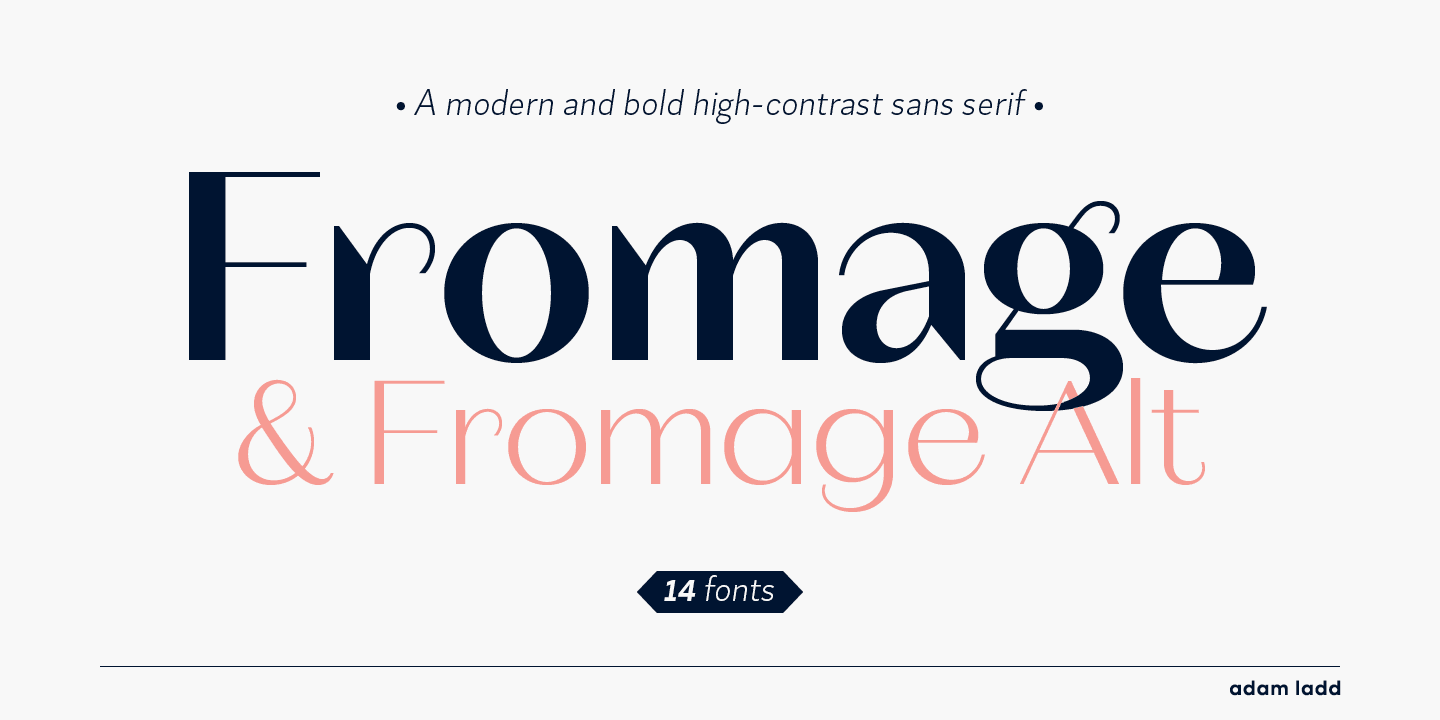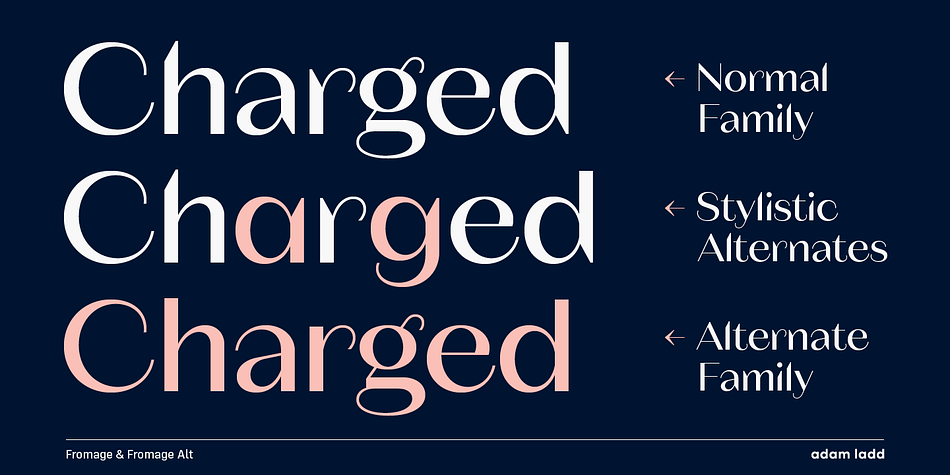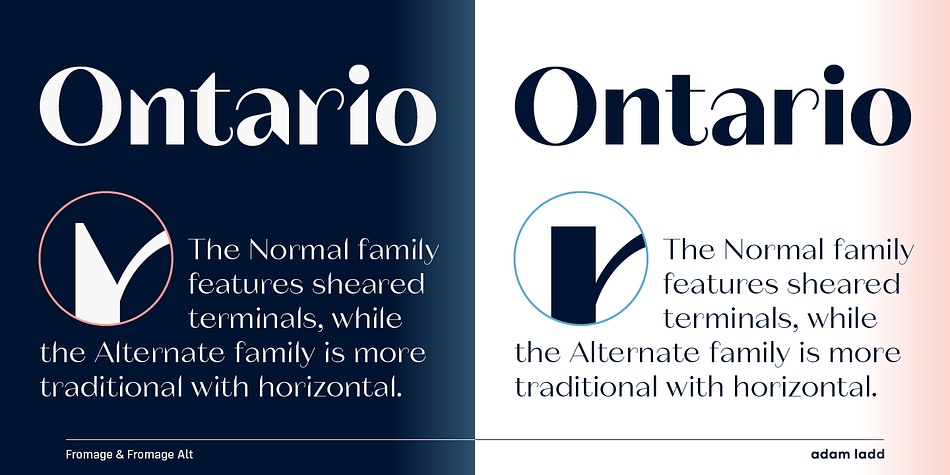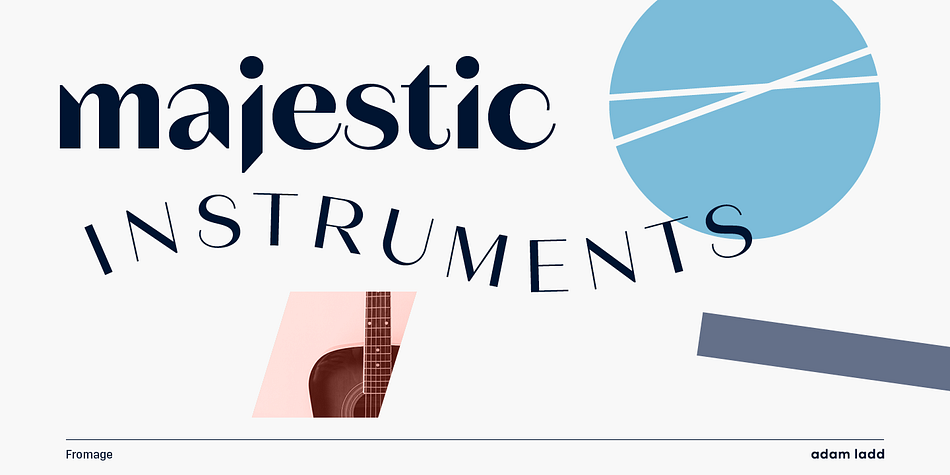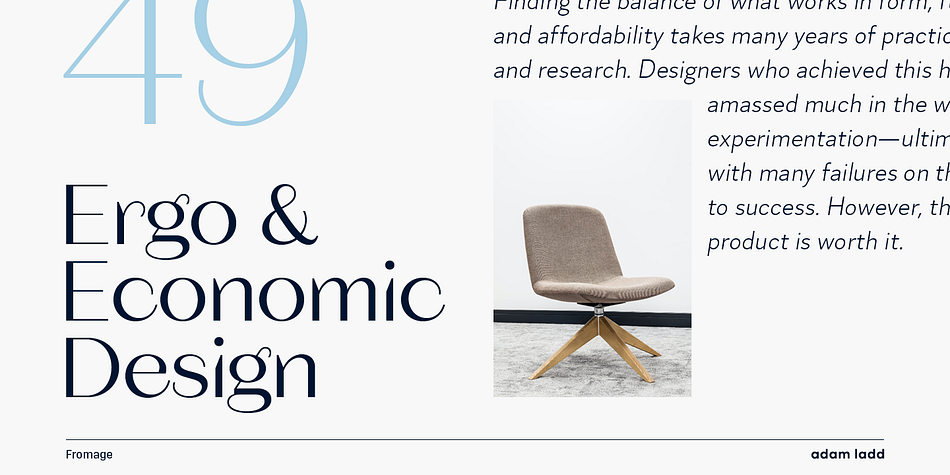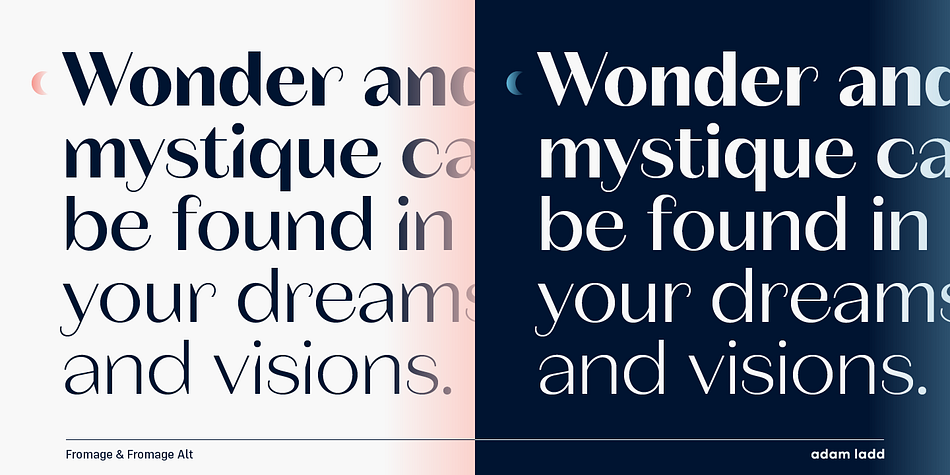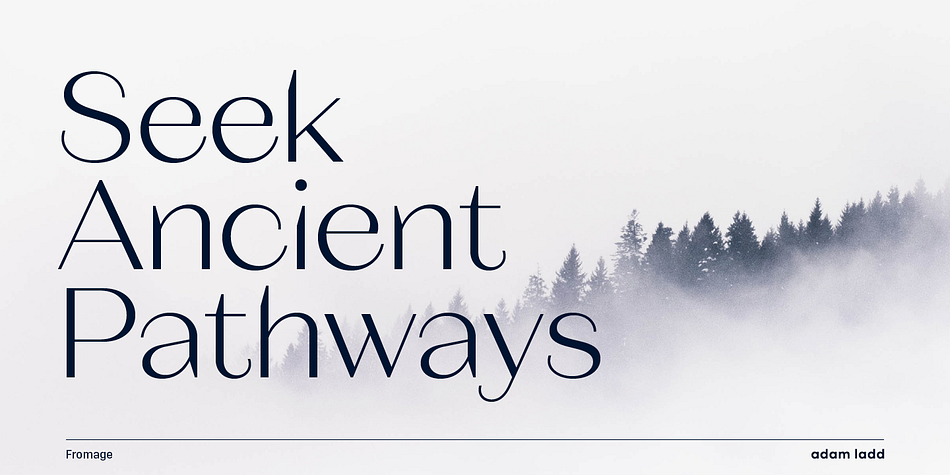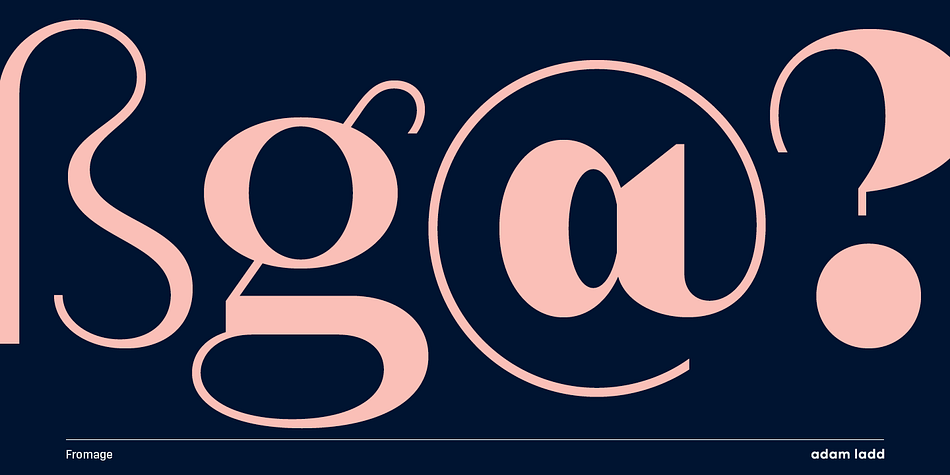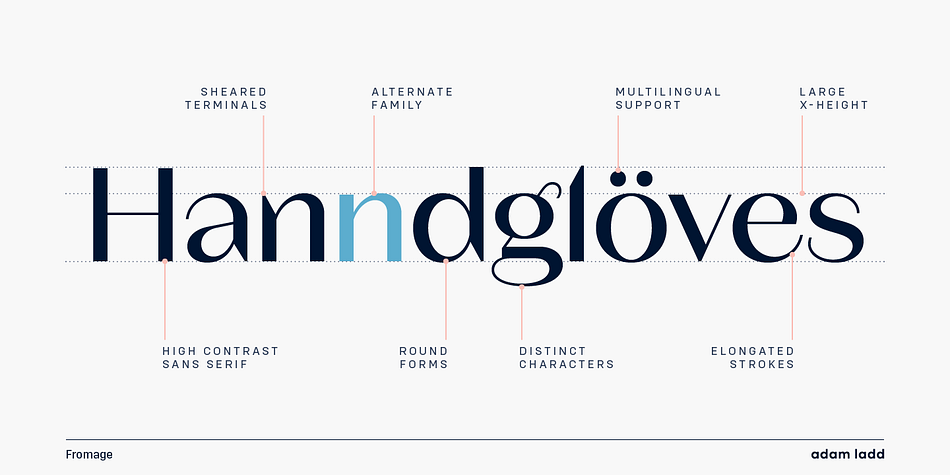
Designed by Adam Ladd, Fromage is an art deco and display sans font family. This typeface has fourteen styles and was published by Adam Ladd.
Fromage is a modern and bold high-contrast sans serif typeface that balances visual interest with restraint. Designed with Adam Ladd’s signature personality, Fromage has dramatically angled terminals and elongated stroke endings that lend both an elegant air and a dynamic rhythm, making it an obvious choice for fashion, beauty, or luxury branding and typography. A generous x-height and round forms ensure it maintains flexibility and legibility in a wide range of applications, like headlines, signage, and display settings on websites.
With horizontal rather than the sheared terminals of Fromage, Fromage Alt offers a more classic and refined look, conveying touches of a traditional serif Didone. Coming in seven weights which include stylistic alternates, a set of arrow icons, true fractions, superscript and subscript numerals, and an extensive character set with support for 100+ languages, Fromage is a truly versatile 14-style font family ready for any project.